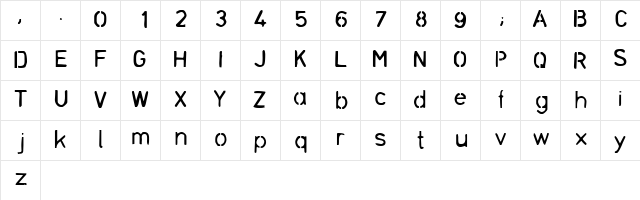
stencil bash Regular
Design Context for stencil bash Typeface
stencil bash borrows the utilitarian aesthetic of stencil lettering, with its characteristic cutaways and no-frills construction lending an industrial edge.
Ideal for industrial branding, streetwear, military-adjacent aesthetics, and urban signage projects.
Pro Tip: Pair stencil bash with raw, utilitarian design elements — exposed concrete textures, flat colour, and minimal ornamentation suit it well.